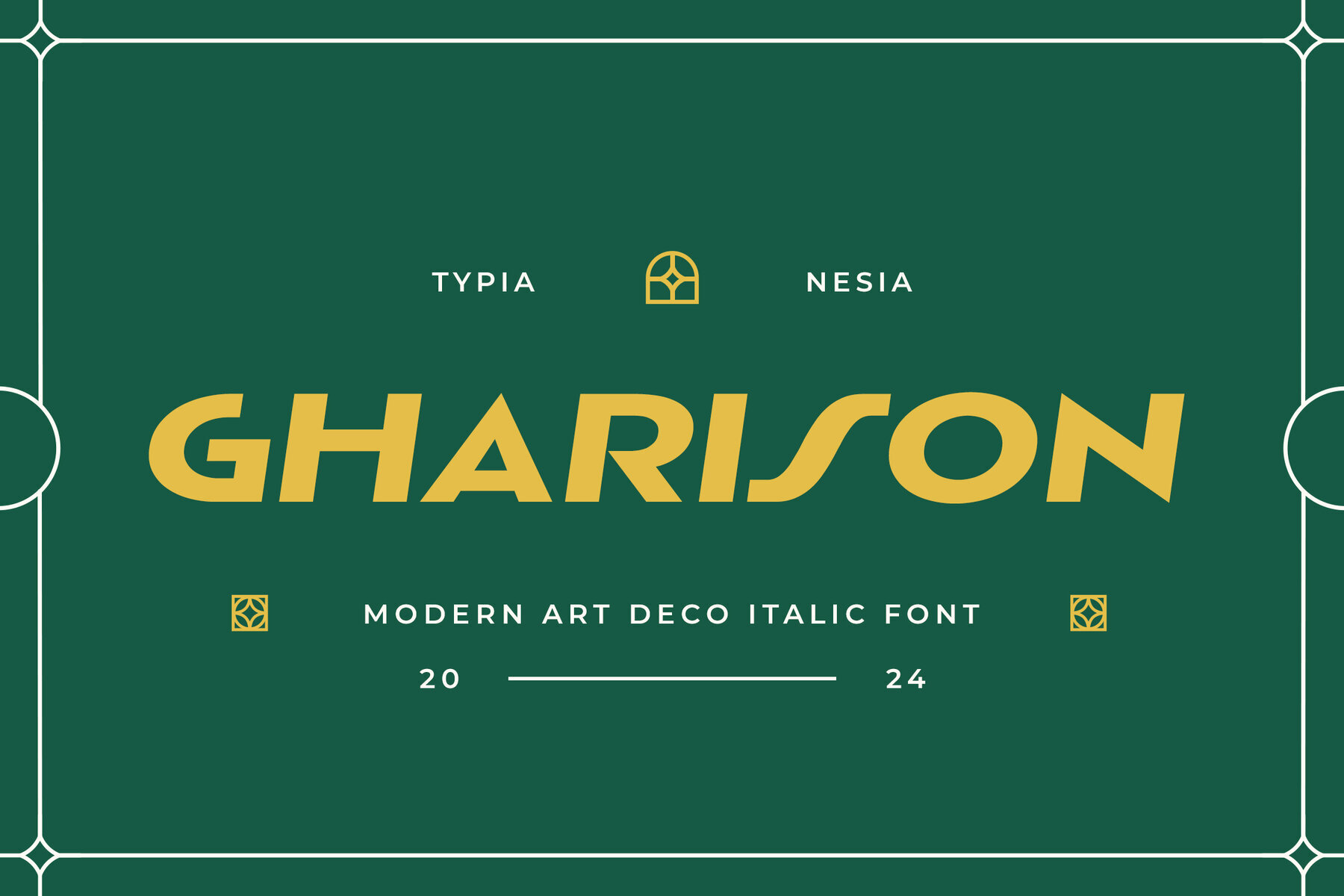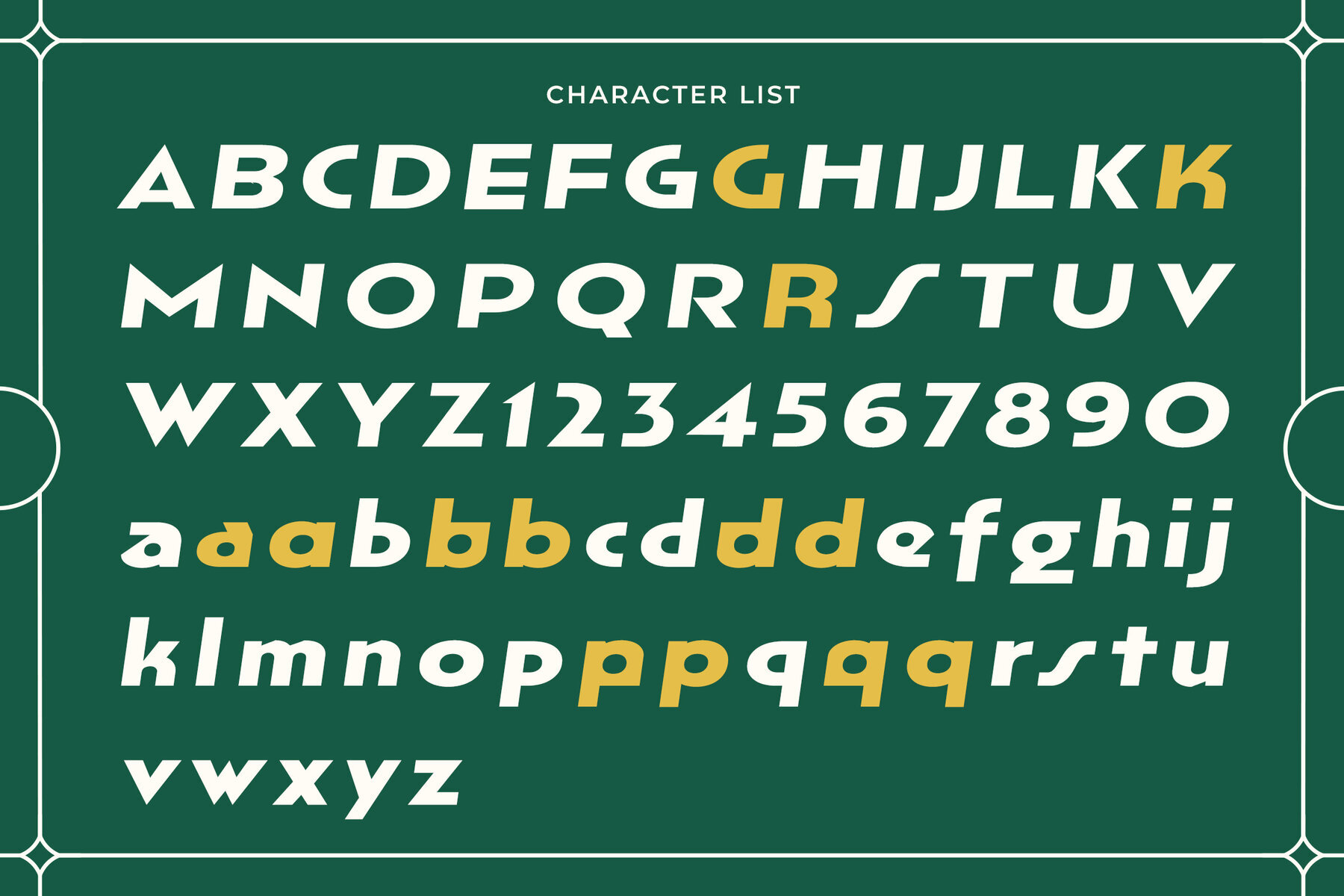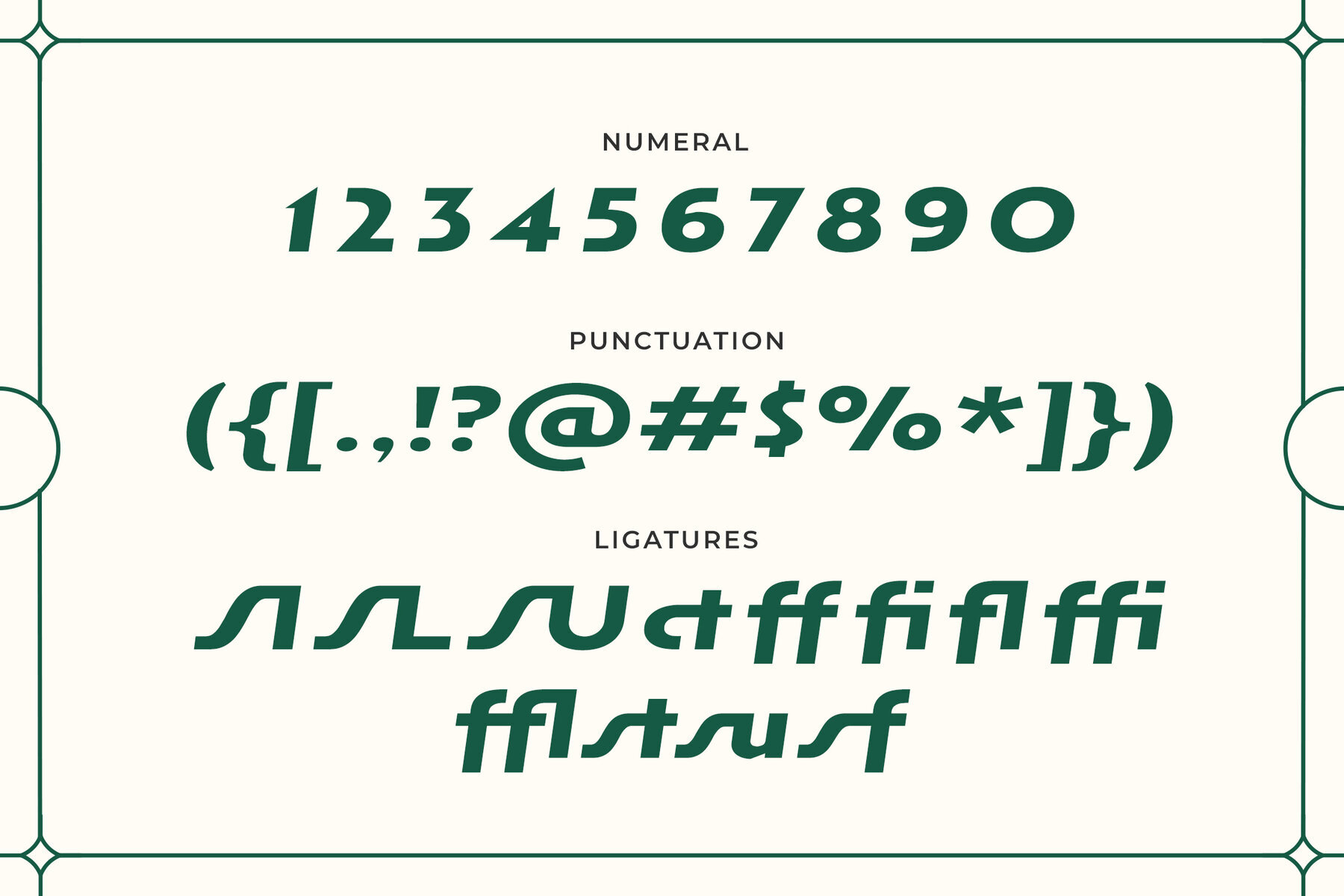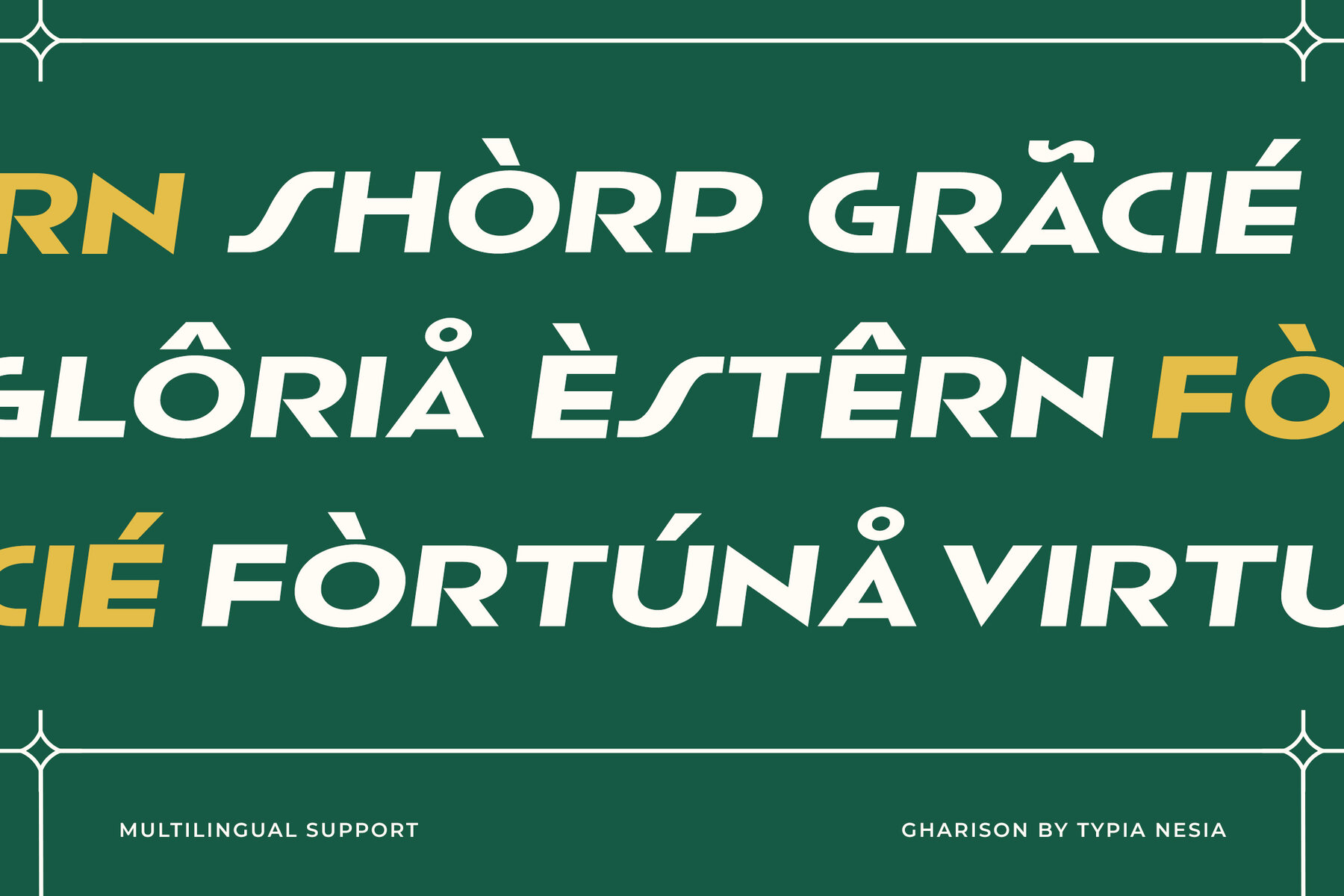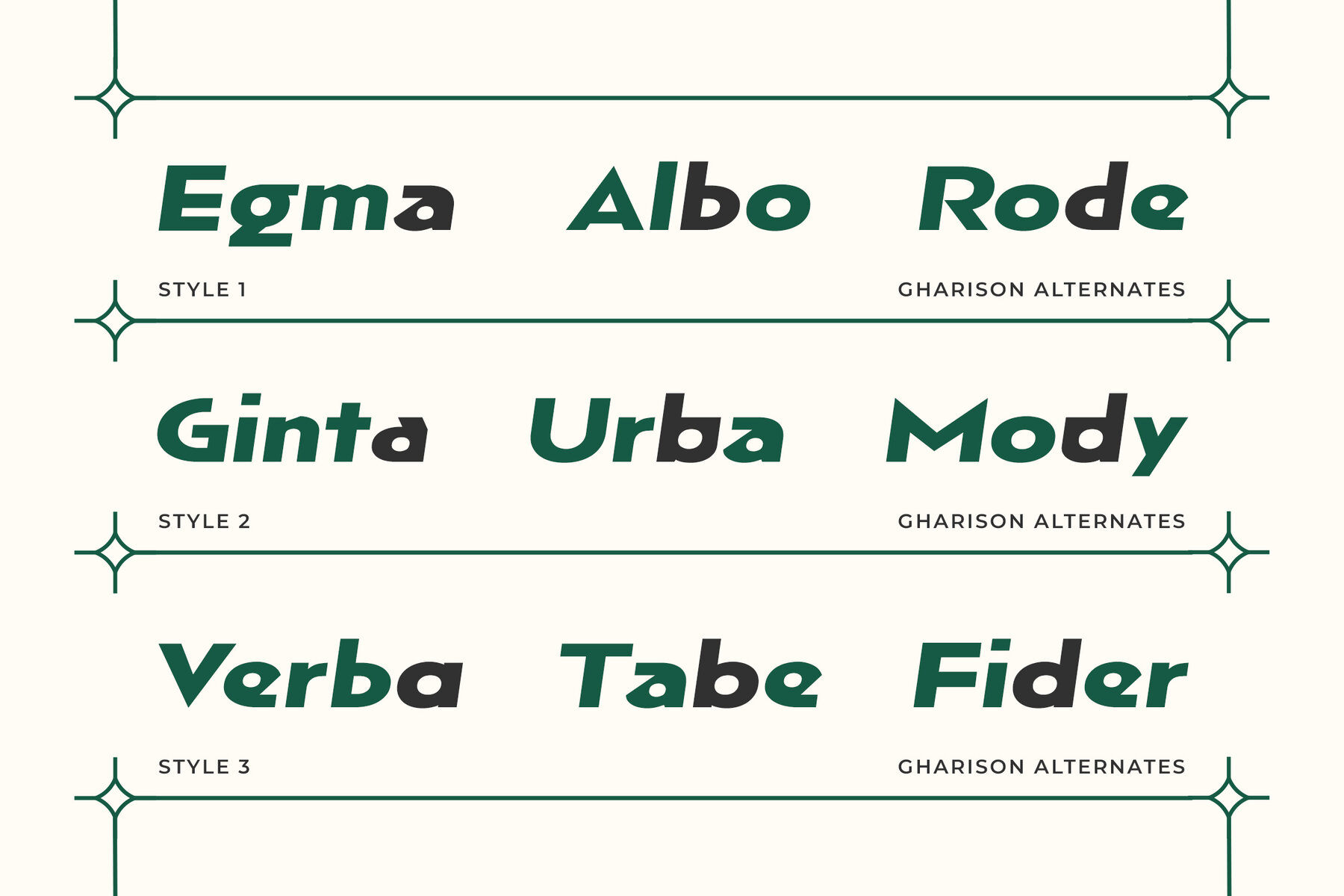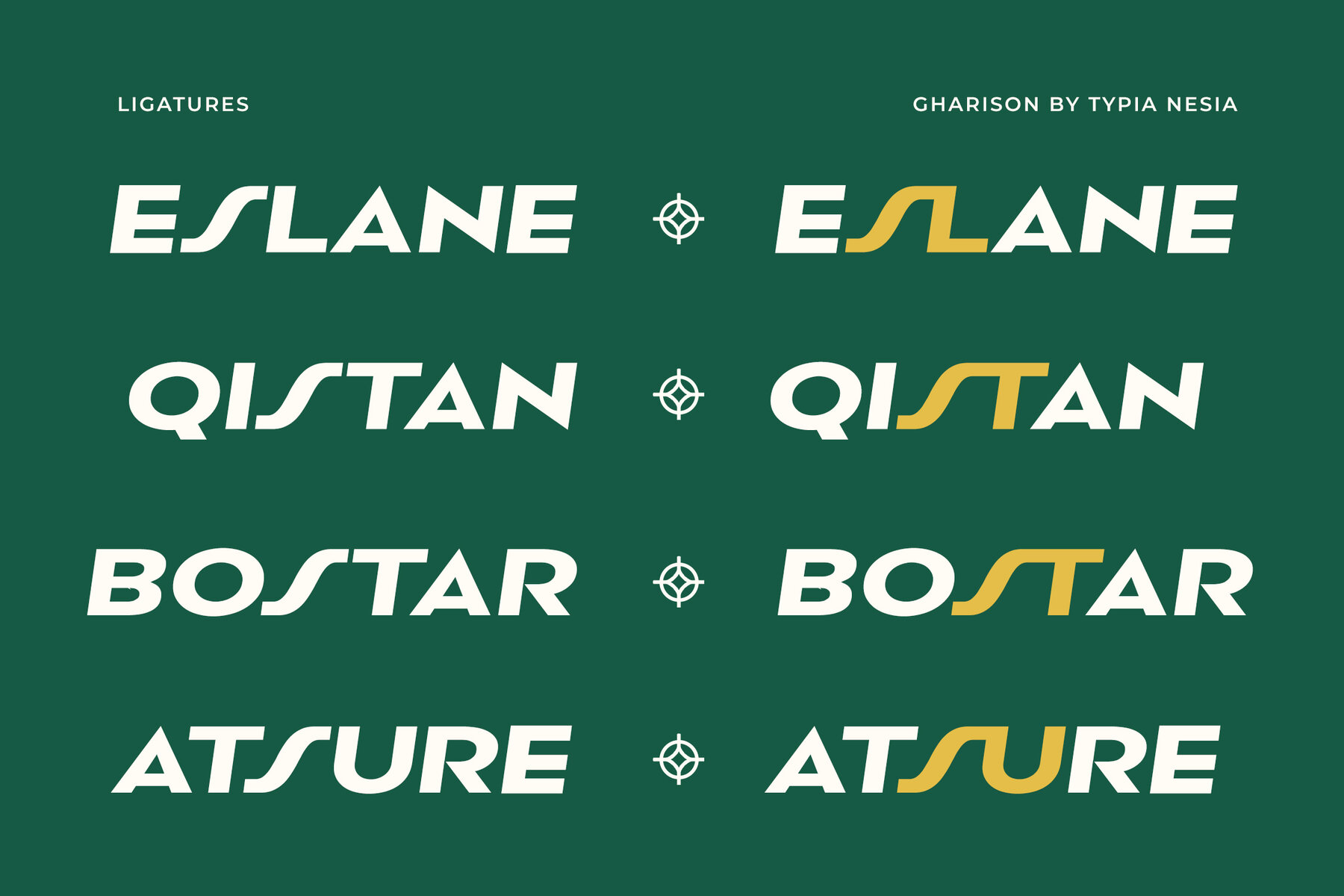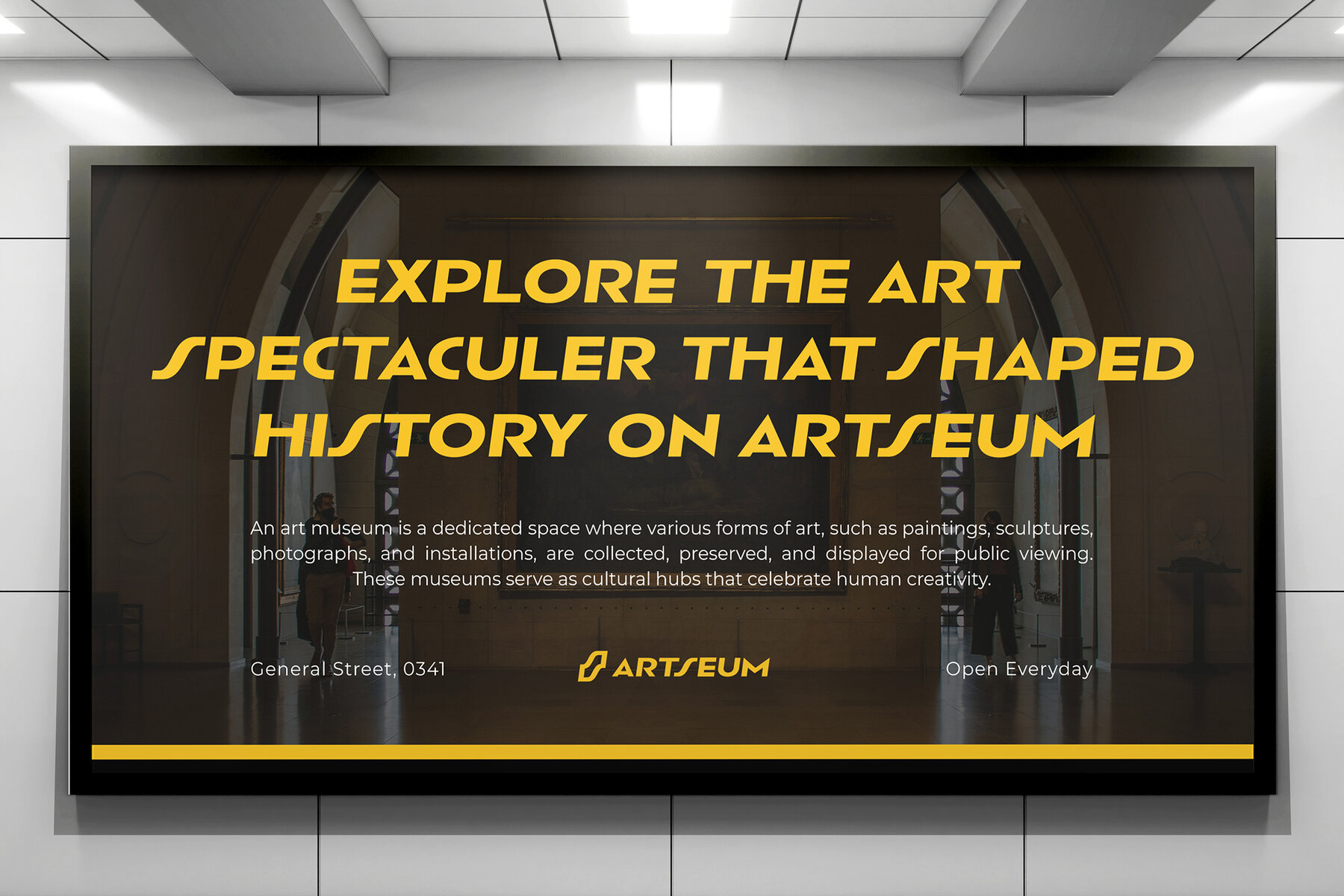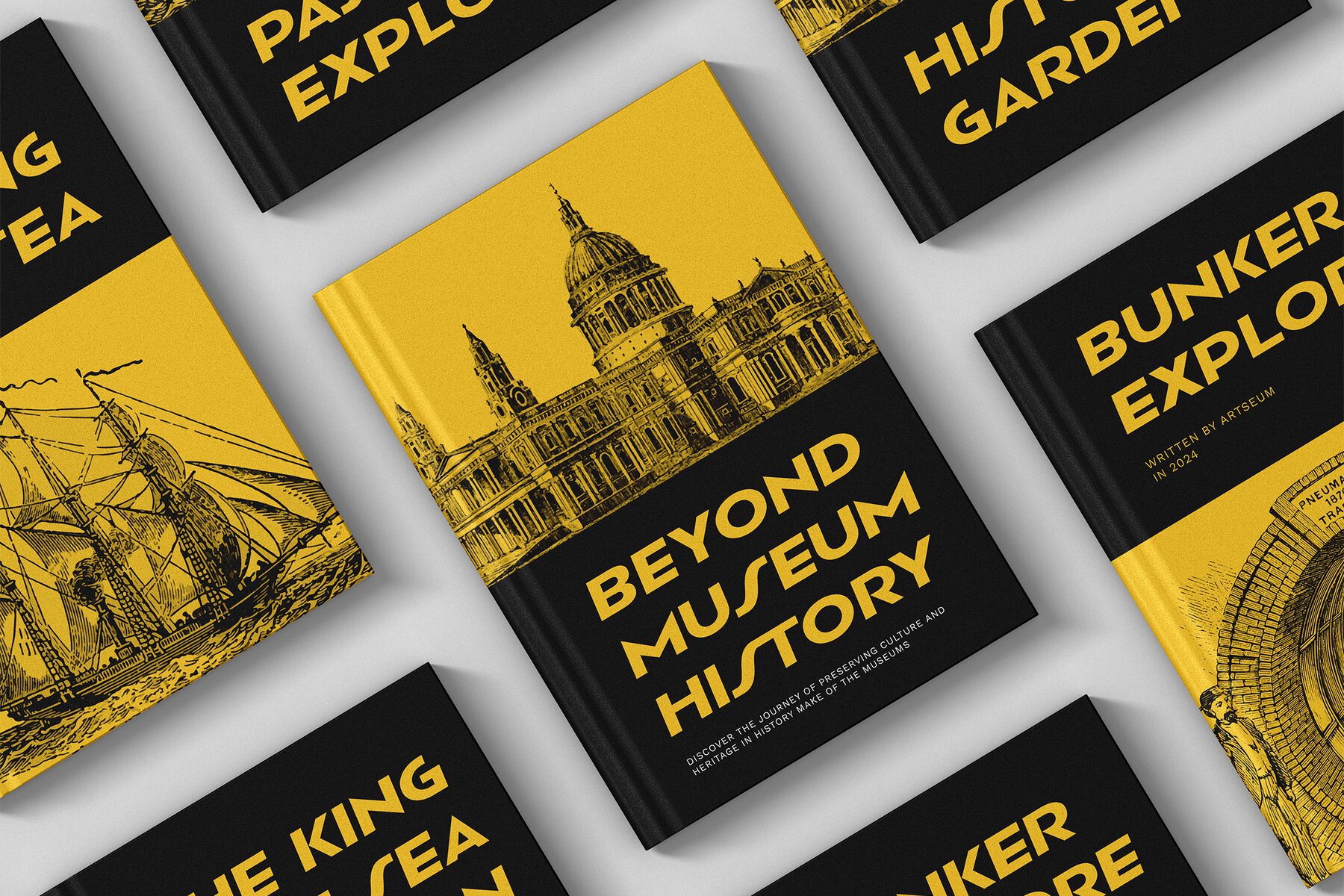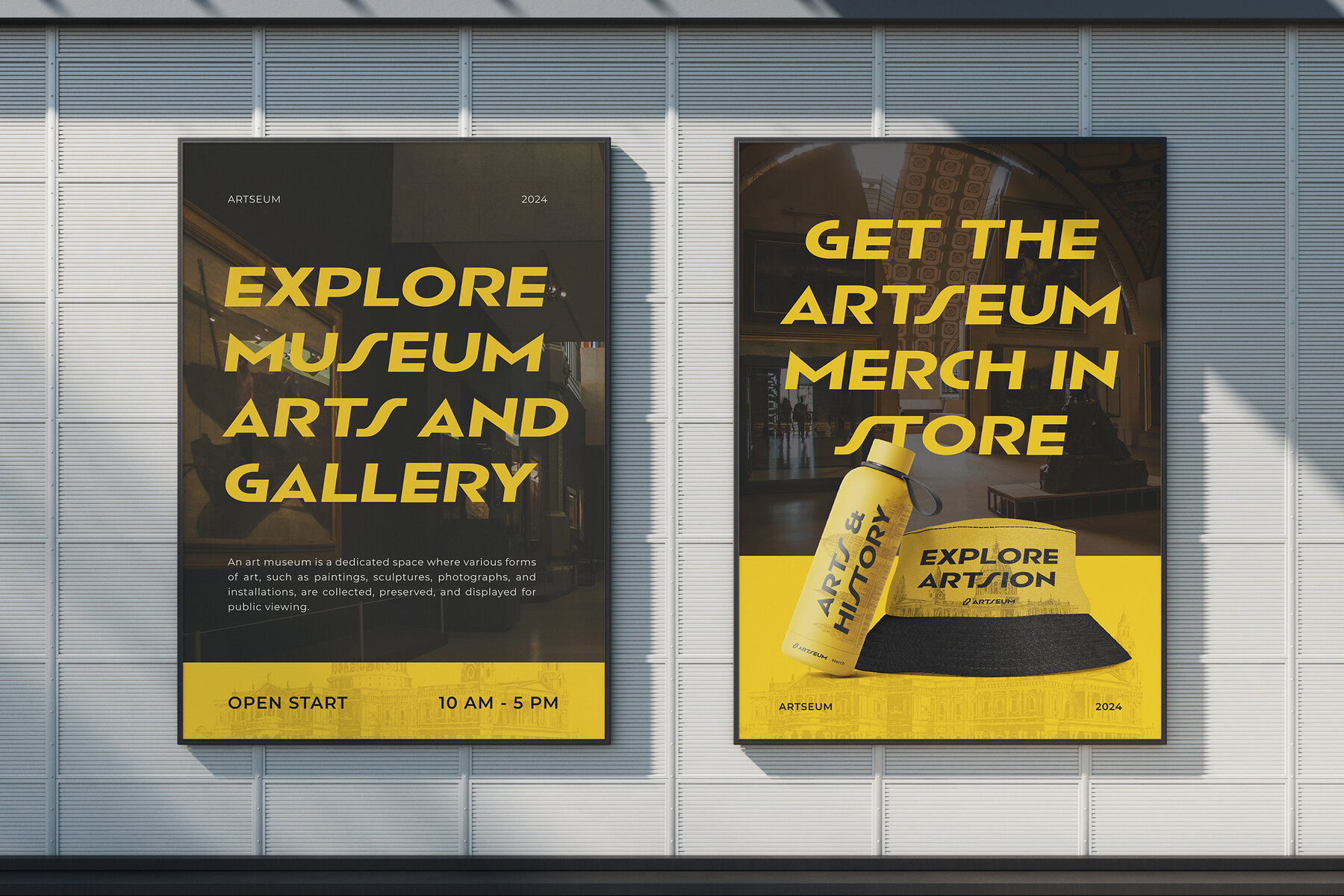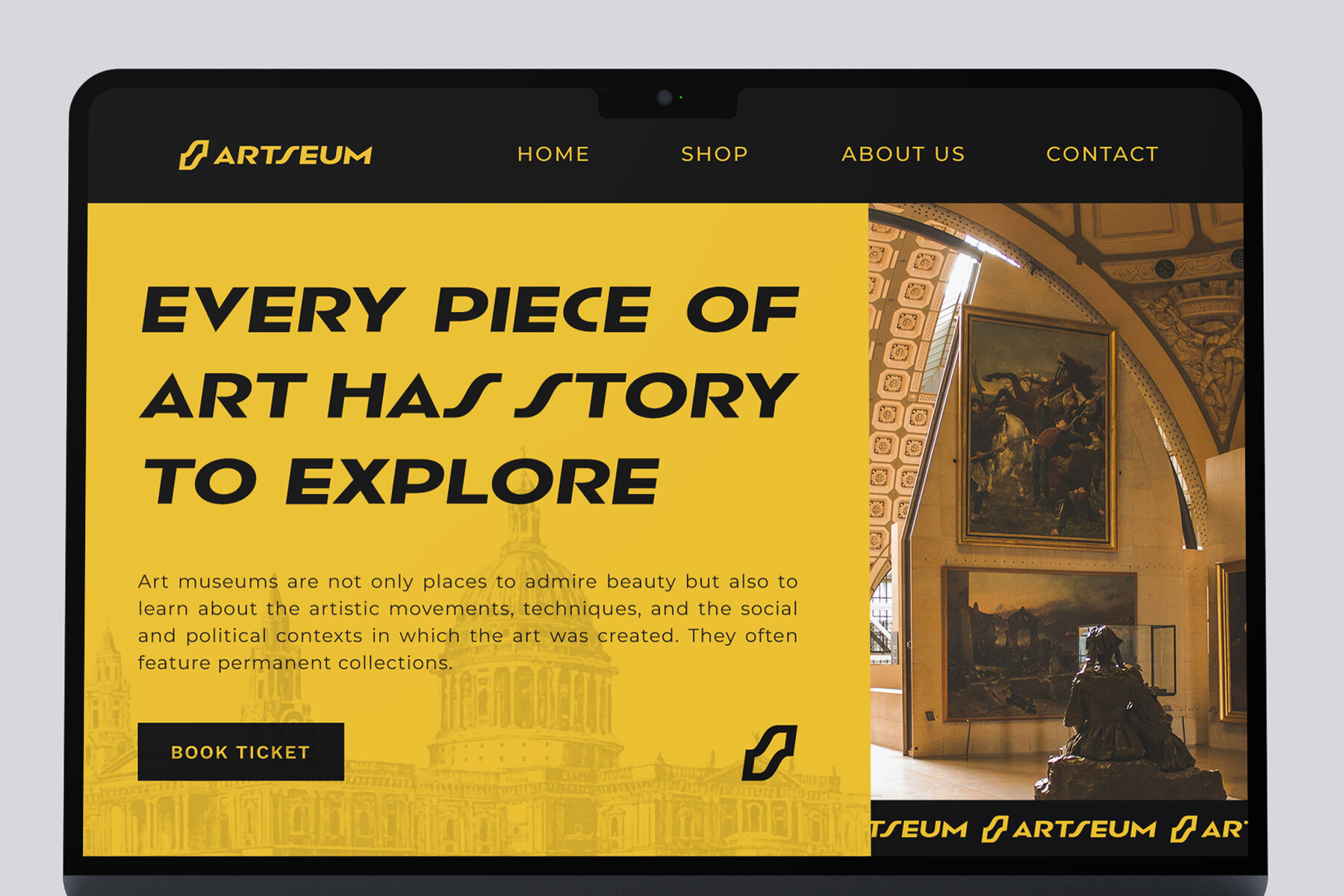
Gharison Font
Gharison Regular
Gharison is a sophisticated Modern Art Deco Italic font that seamlessly merges the timeless elegance of the Art Deco period with a contemporary flair. Its elegantly italicized forms inject a sense of movement and refinement into your design projects, making it ideal for those seeking to blend classic and modern aesthetics. This versatile font is an excellent choice for luxury branding, editorial layouts, packaging design, as well as high-end invitations. Whether used in fashion magazines, advertising, boutique branding, or architectural design, Gharison imparts a touch of vintage elegance combined with a cutting-edge look.
With a comprehensive set of uppercase and lowercase letters, punctuation, numerals, and alternate characters, Gharison supports multilingual projects, offering adaptability for various creative needs. This font is perfect for designers who aspire to bring a classic allure with modern sophistication to their high-end creative endeavors. Enhance your designs' timeless style with Gharison, the exceptional Modern Art Deco font that stands out in any upscale project.